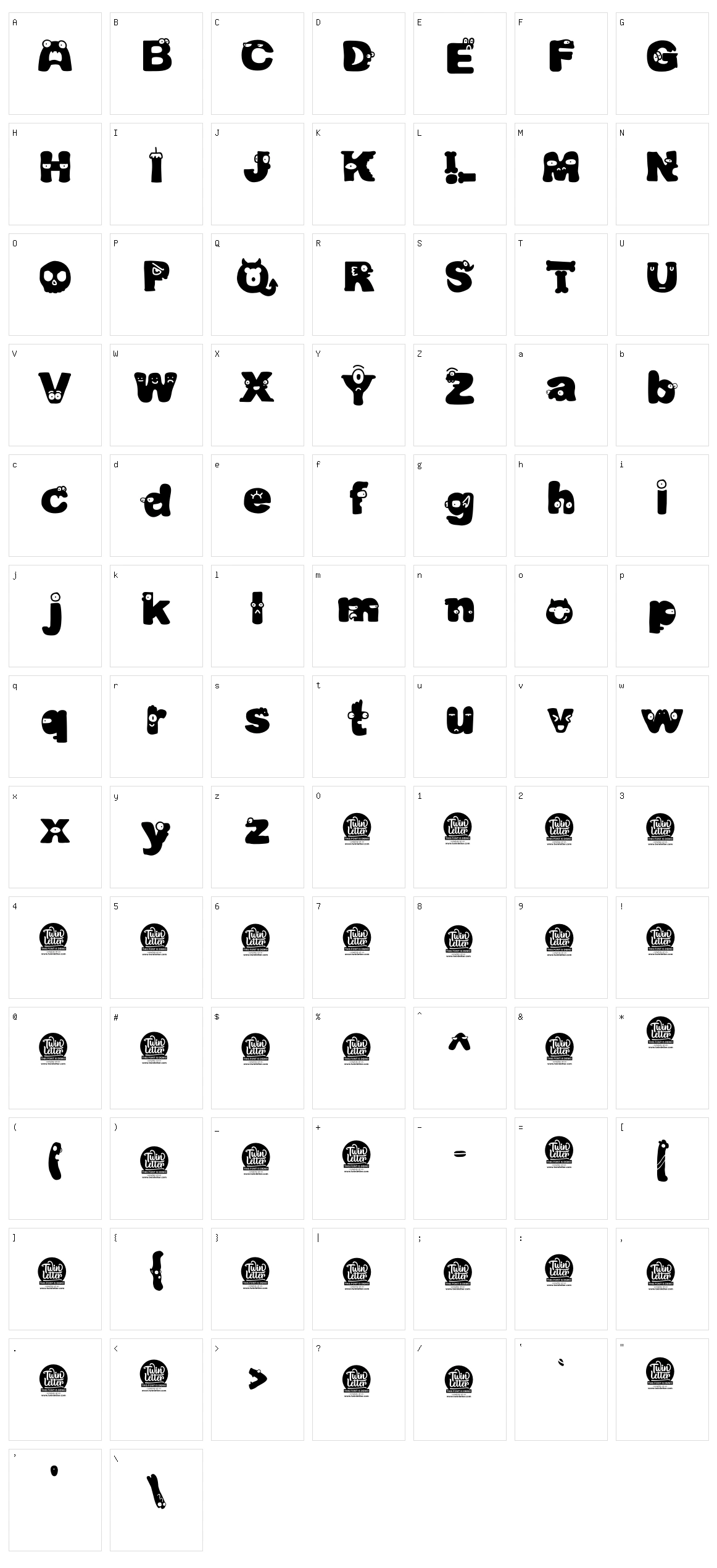
The free font Qindars is carefully designed by twinletter, showcasing a thoughtful balance of creativity and usability and falls under the Halloween font style. When you download the ZIP file, it contains only 138.45 KB of font files, making it lightweight and quick to download. Please review the license details below to understand permitted usage and distribution rights. If license information is not available, we recommend using this font for personal projects only or contacting the author directly for commercial usage permissions.